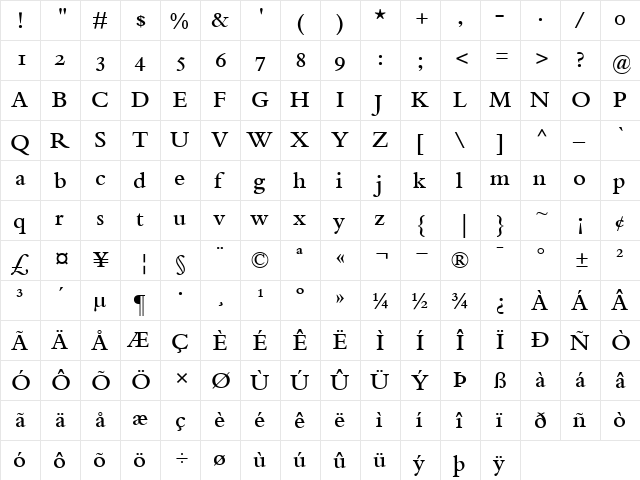
BemboOldstyleFigures-SemiBold Semi Bold
Design Context for BemboOldstyleFigures-SemiBold Typeface
BemboOldstyleFigures-SemiBold brings classic typographic sensibility to the table — its serifs and measured letterforms reflect centuries of print heritage. Its bold stroke weight gives it real presence on the page.
Pro Tip: Set BemboOldstyleFigures-SemiBold with slightly loose tracking in headlines to let each letterform's detail read clearly at display sizes.